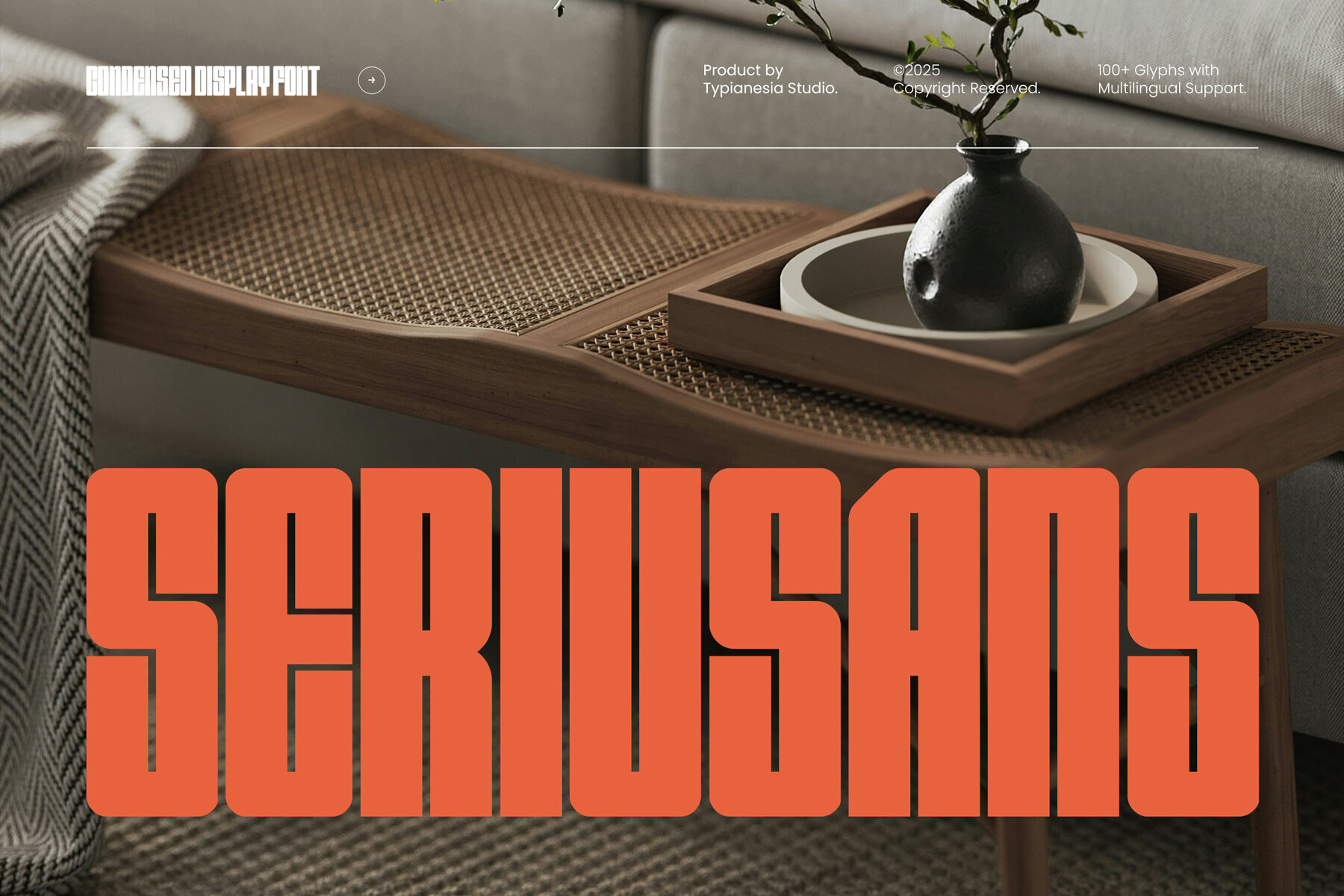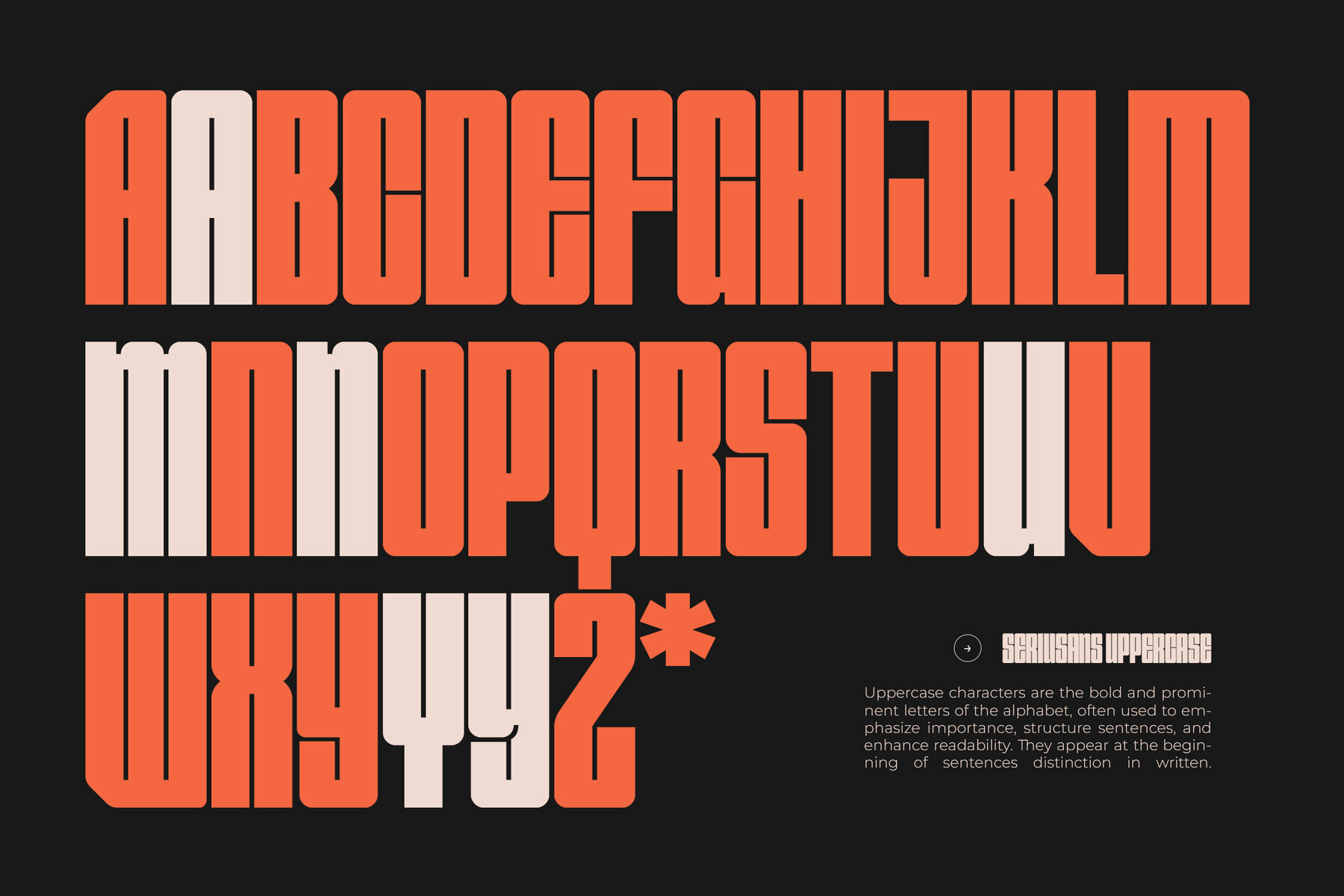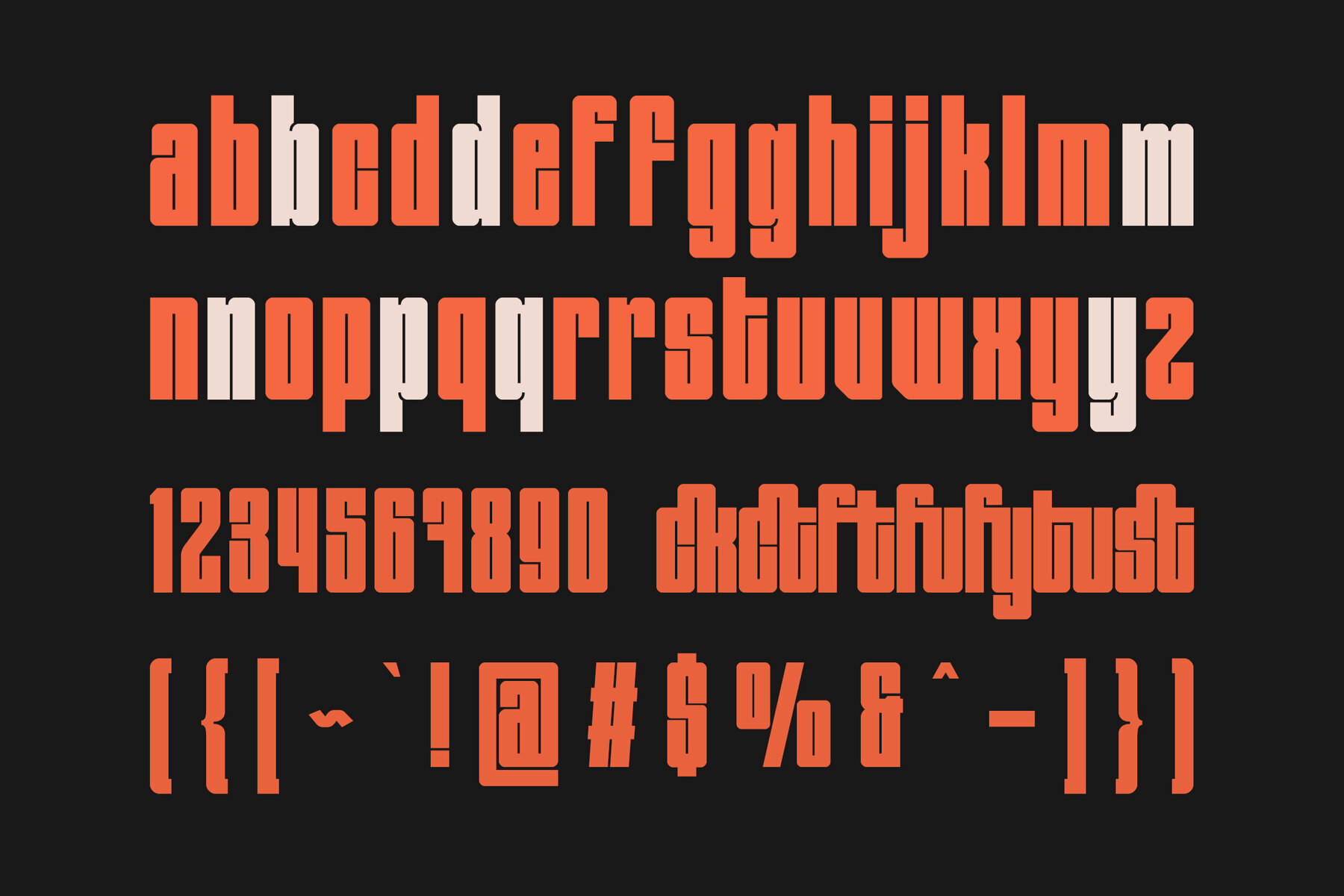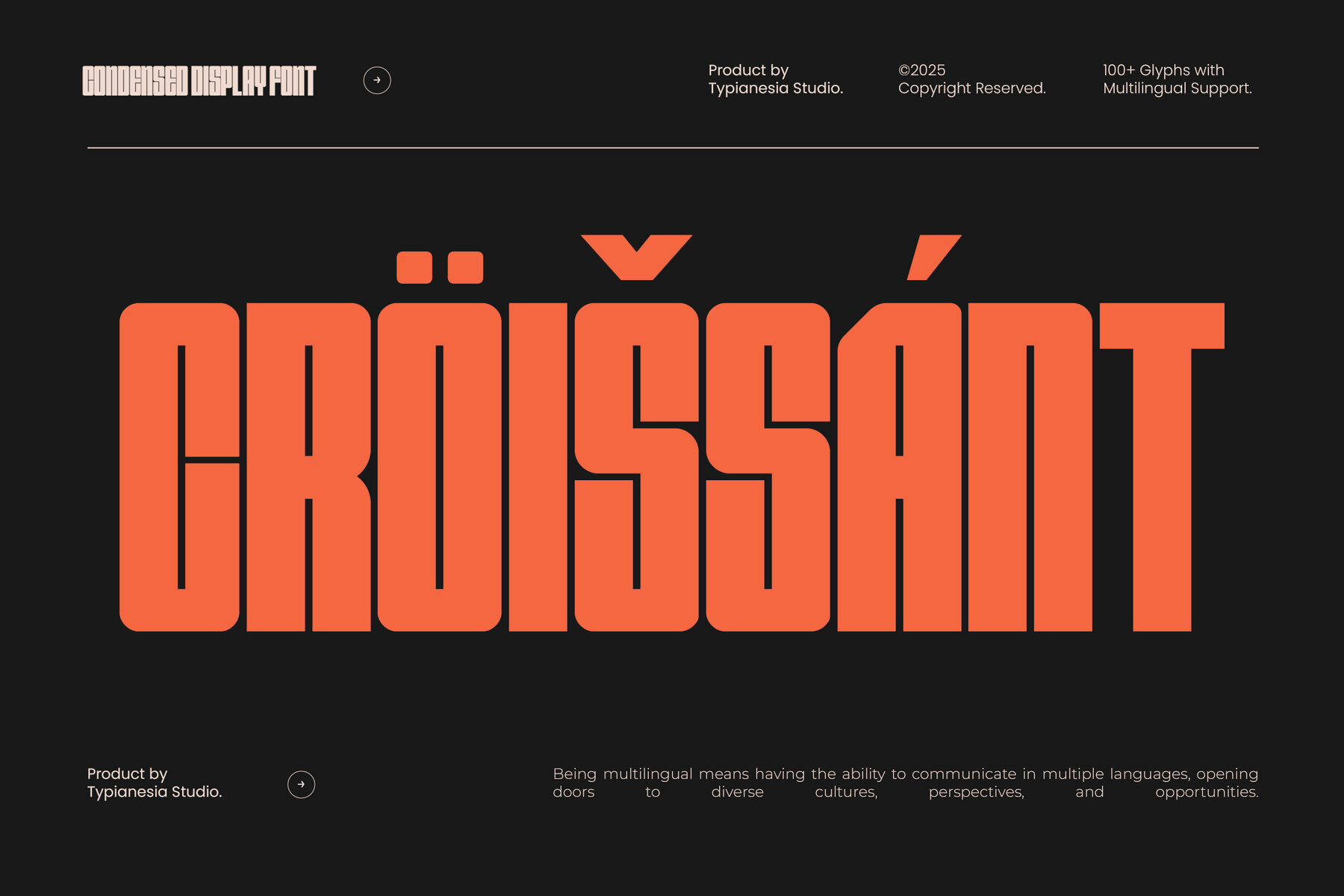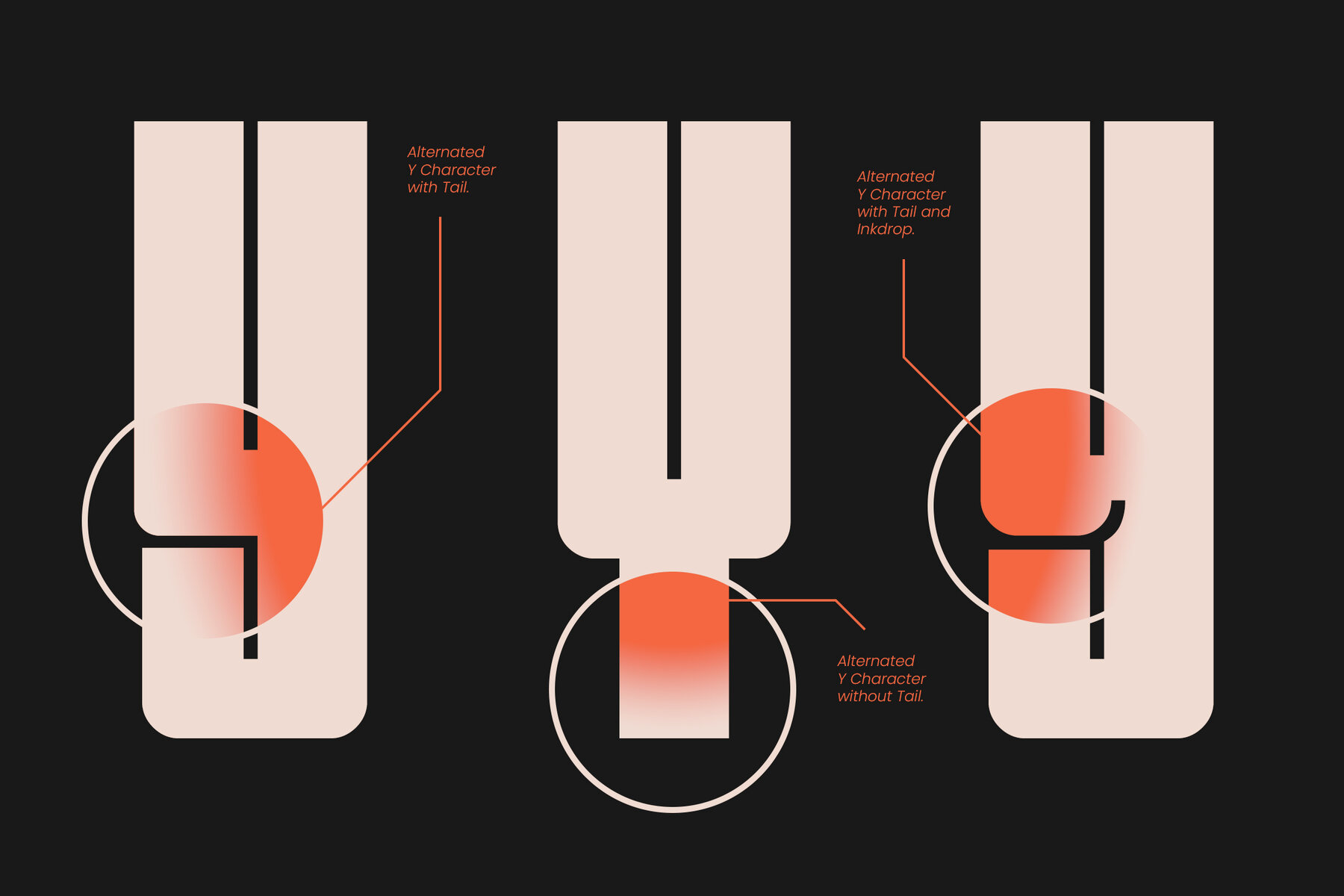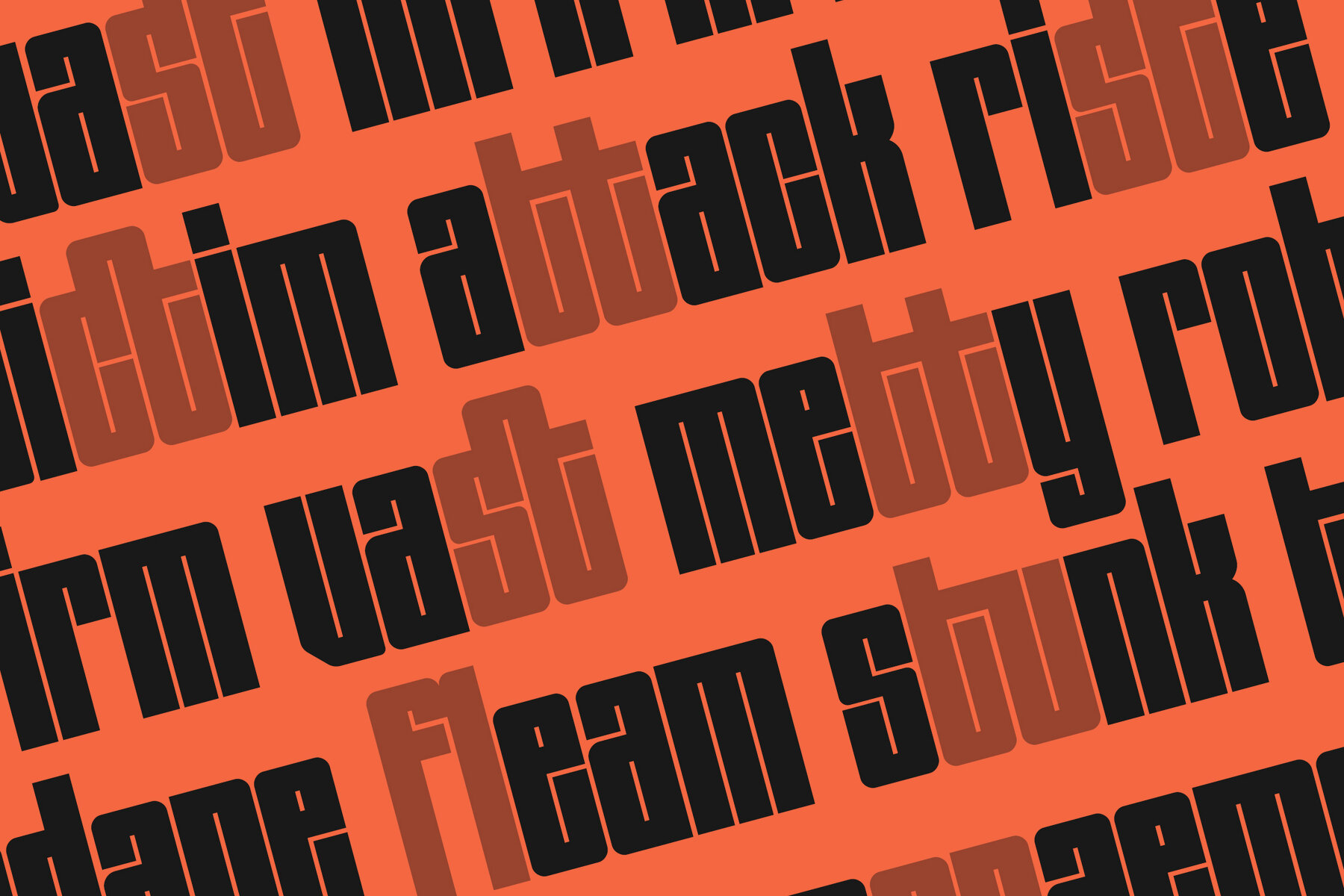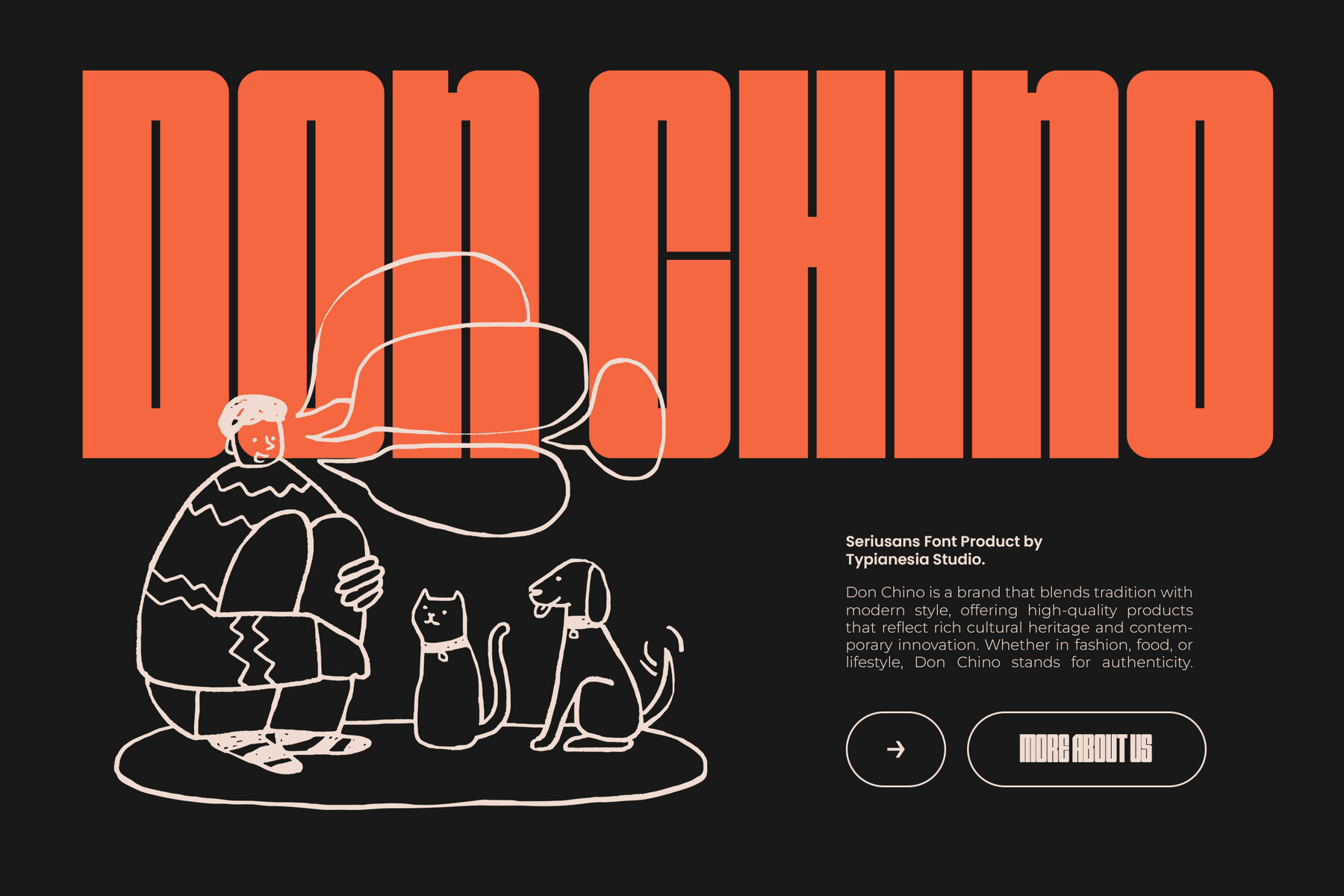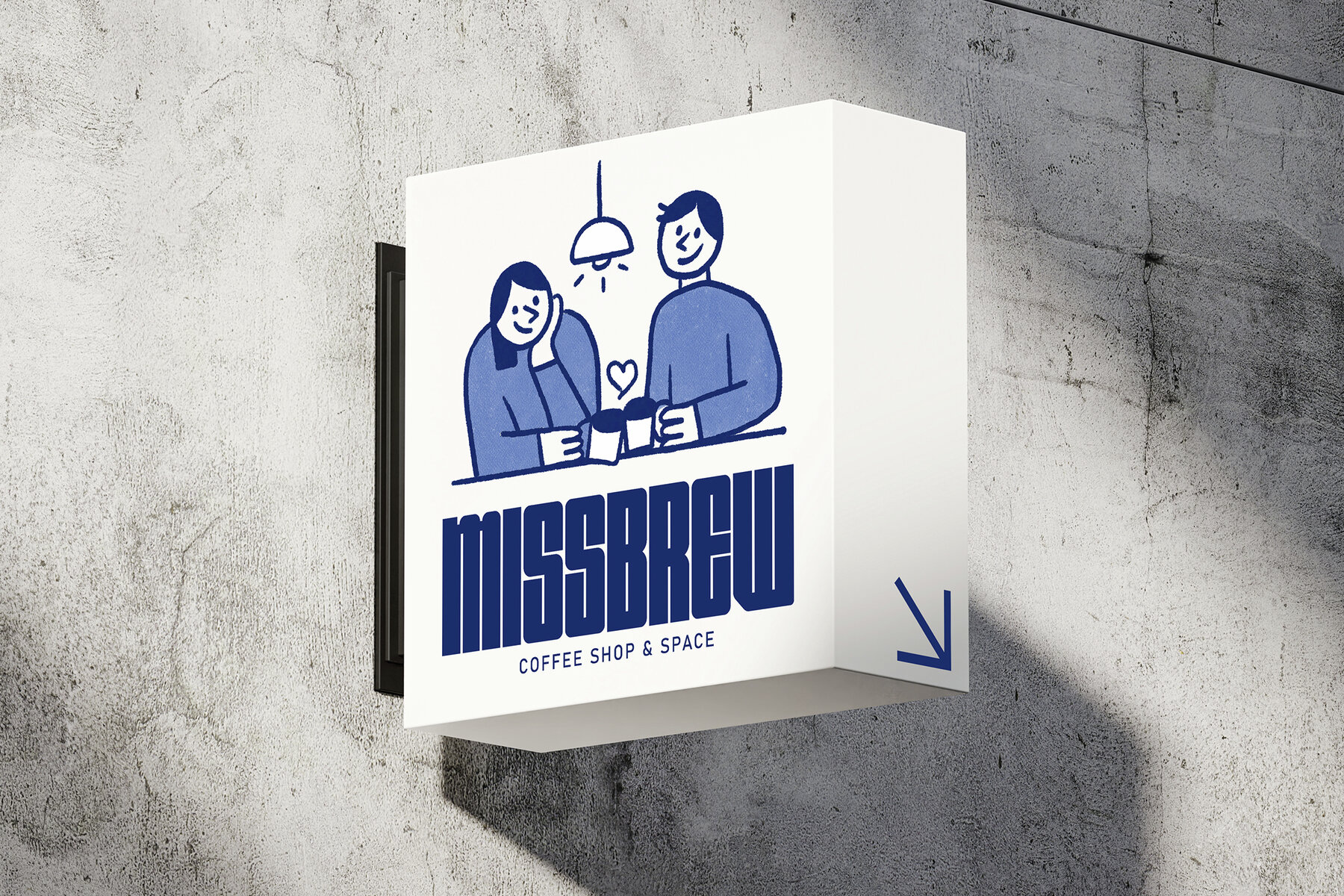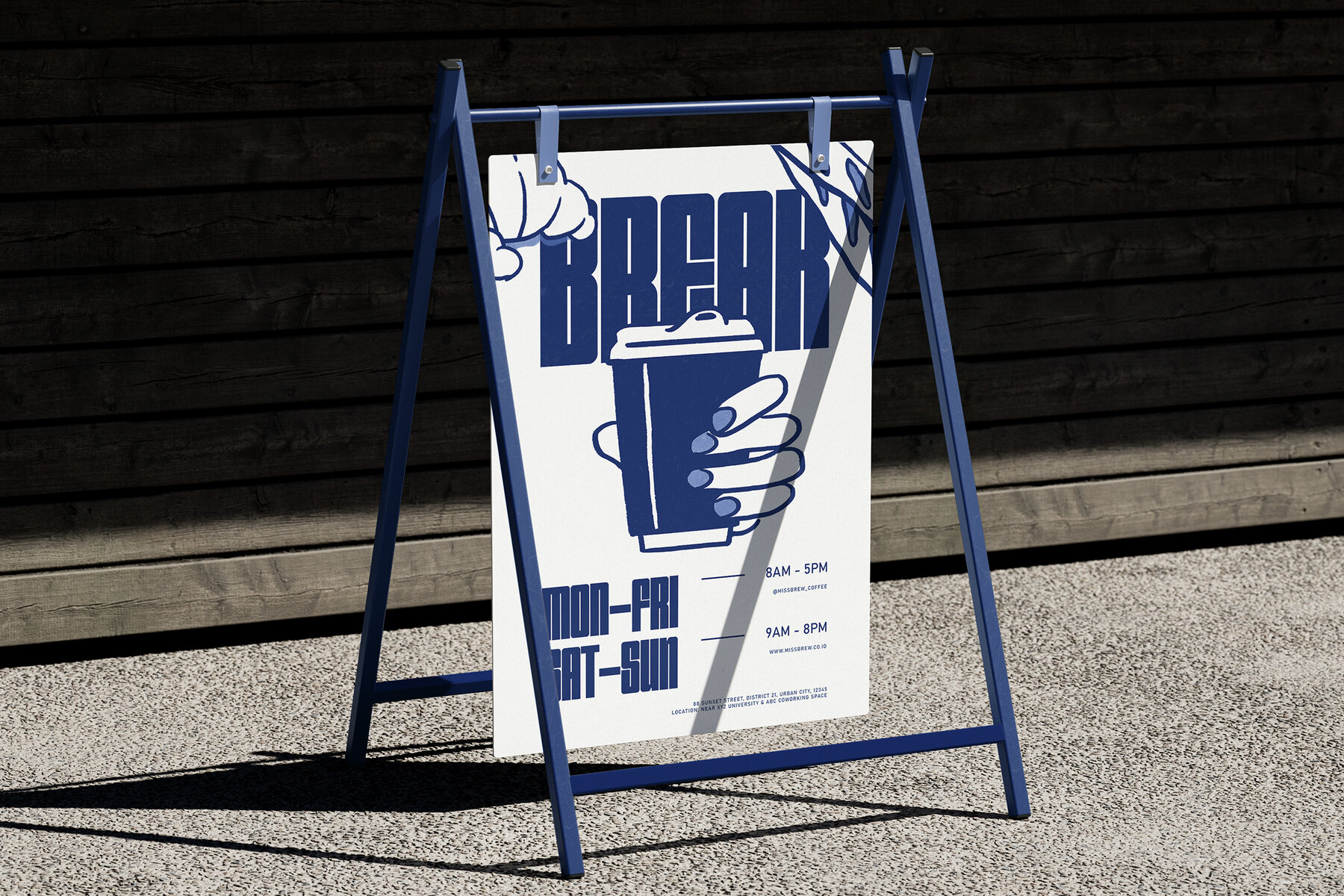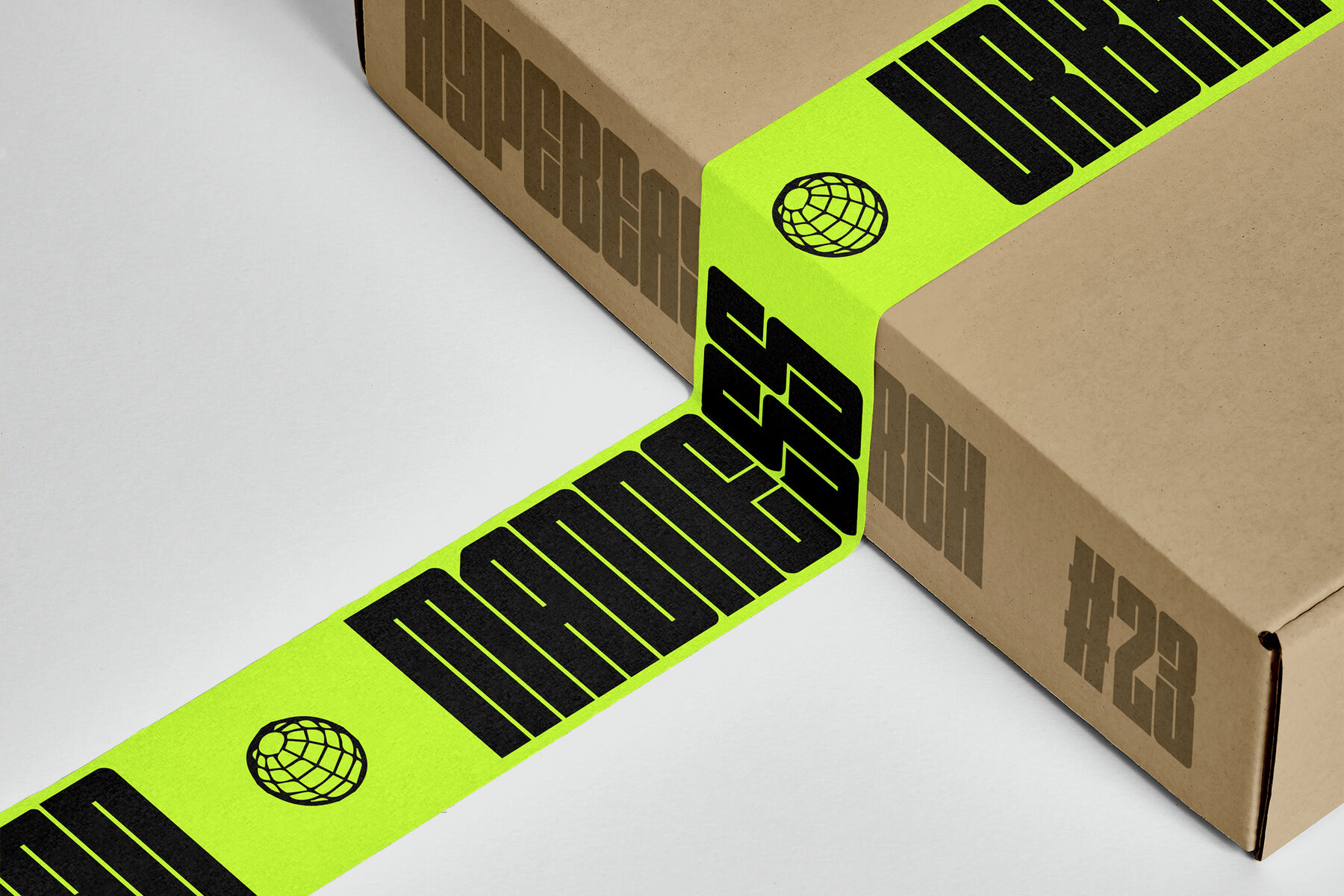
Seriusans Font
Seriusans is a Condensed Sans Display Font that blends modern simplicity with bold features. Its narrow yet striking letterforms create a powerful presence, making it an excellent choice for impactful design such as posters, magazine headlines, branding, packaging, web design, sports graphics, editorial layouts, advertising campaigns, corporate presentations, and any project that requires a clean and structured appearance that enhances readability while maintaining a strong visual identity.Seriusans: Condensed Sans Display with Modern Bold Appeal